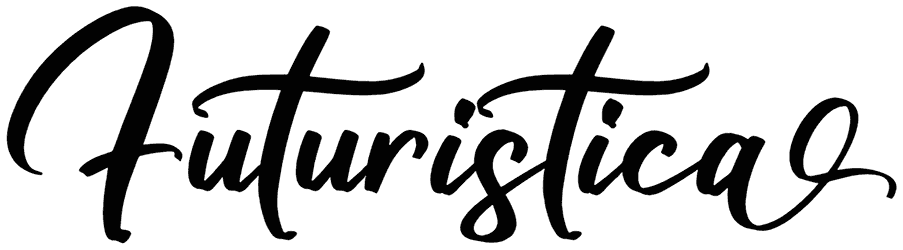
Futuristica Signature Font
Turn your words into a warm, friendly design with Futuristica Signature, an approachable high-quality script font associated with sophisticated letters that give it a great point of stand out.
This calligraphy font with two various styles can act as the first top preference for any casual expression, such as postcards, album covers, TV shows, quotes, and more. Give it a try now and bring pleasant, charming, and exquisite feedback.